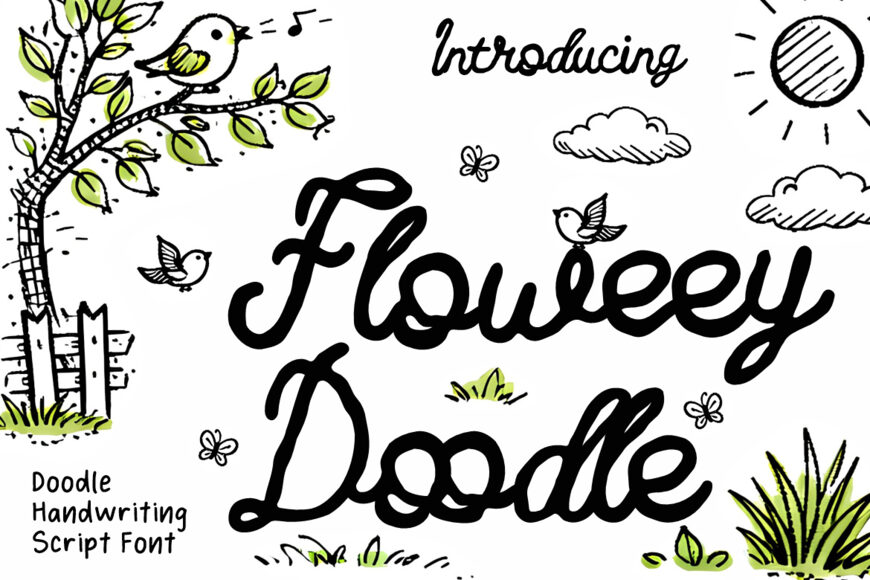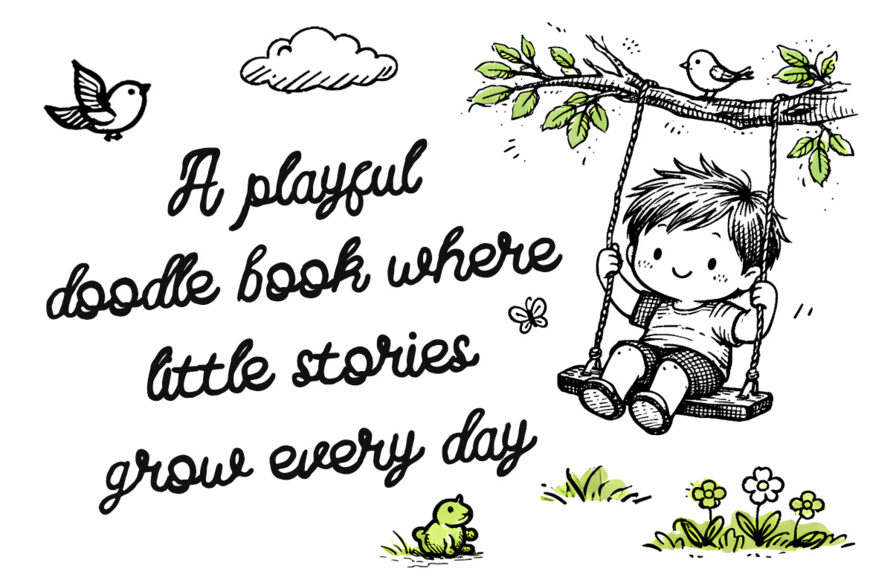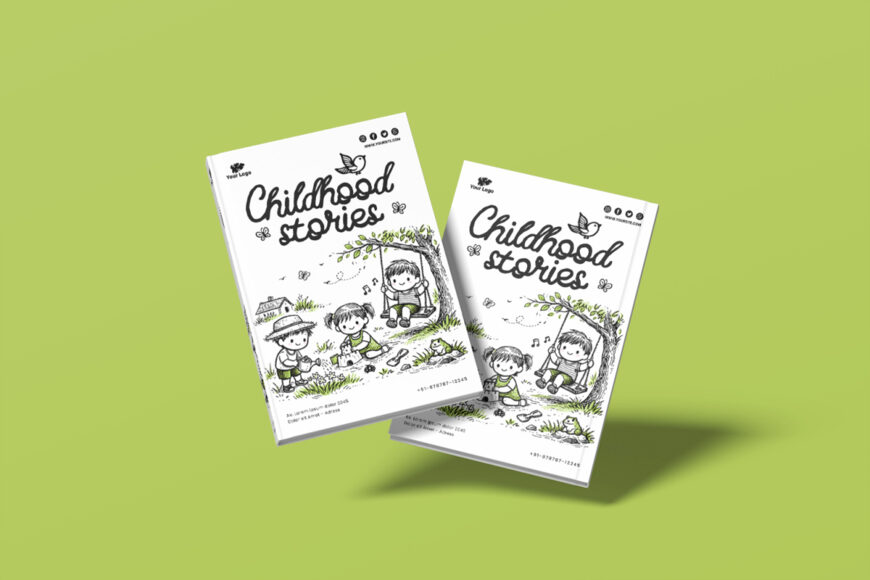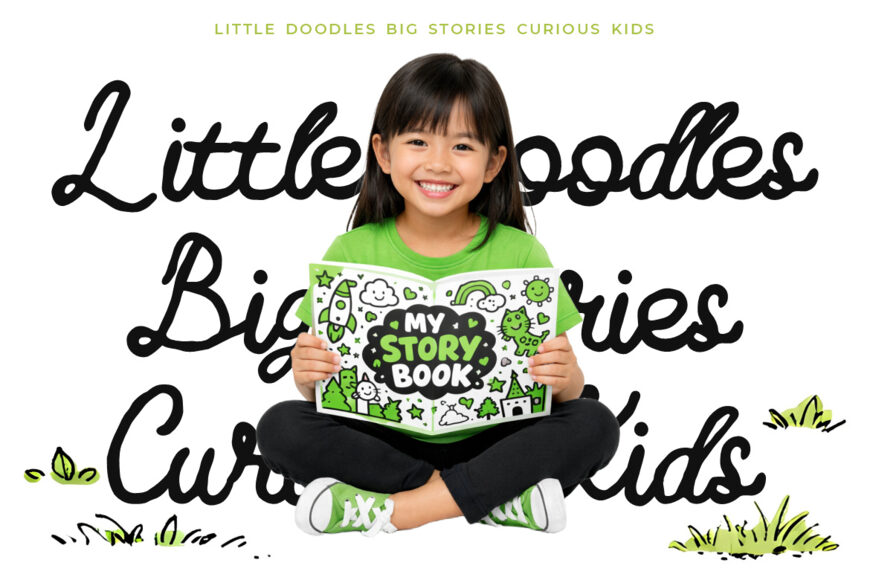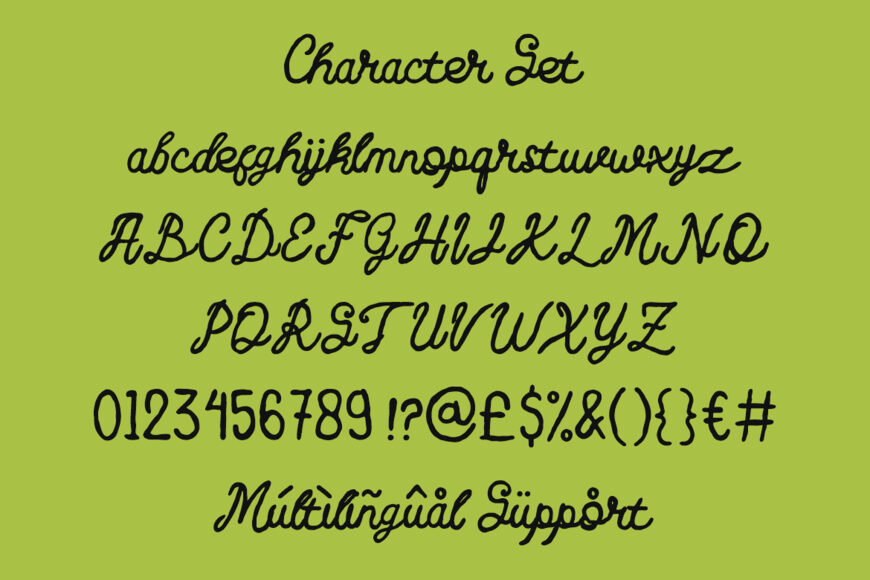
Floweey Doodle is a handwritten script font inspired by the charm of natural pen strokes. Its relaxed rhythm, rounded curves, and smooth connections create a warm, organic feel. Medium-weight lines, subtle variations in height and baseline, lively ascenders, and gently curved descenders give each character a personal touch.
Although fluid and playful, the font remains easy to read in headlines and short text. Ideal for logos, creative branding, children’s books, story titles, greeting cards, stickers, posters, and social media graphics, Floweey Doodle adds a friendly style to education brands, handmade products, creative studios, and personal projects.